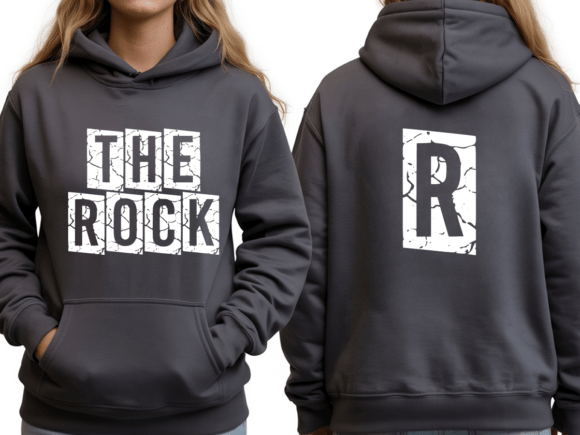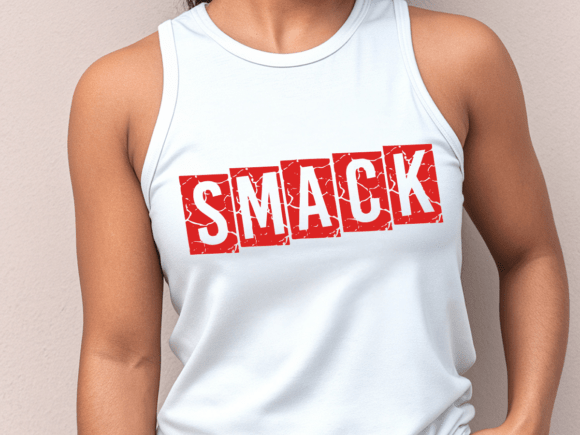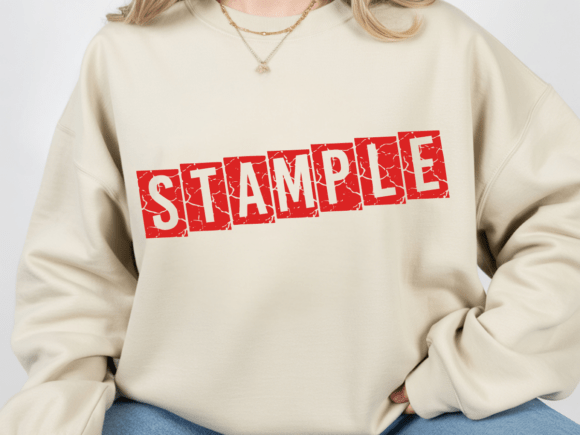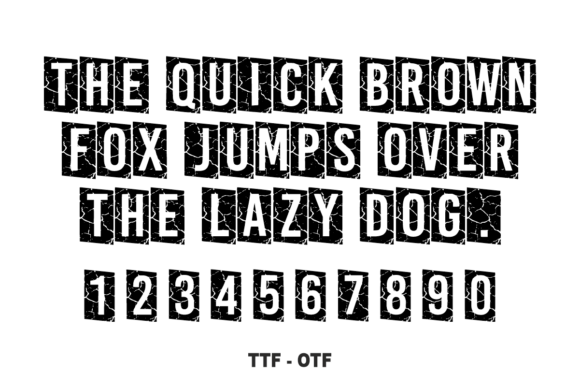
Unleash the Power of Battle Font: The Ultimate Display Font for Masculine Designs
Are you looking for a font that exudes strength, power, and grit? Look no further than Battle Font, a heavy-duty display font designed to ignite the spirit of a warrior. With its bold, blocky letterforms and realistic shattered and cracked texture, Battle Font is the perfect choice for high-impact, masculine designs.
What is Battle Font?
Battle Font is a rugged cracked display font that features uppercase letters, numbers, and basic symbols with a distressed touch. Its weathered stone or armor-like texture gives it a unique and authentic look that’s perfect for designs that require a bold and edgy feel.
Main Features of Battle Font
- Uppercase Letters: Strong, blocky, and intensely cracked, perfect for making a statement.
- Numbers (0-9): Matching rugged numerals for scores and dates, adding a touch of authenticity to your designs.
- Basic Symbols: Essential punctuation with a distressed touch, ensuring consistency throughout your design.
Perfect Use Cases for Battle Font
Battle Font is versatile and can be used in various design projects, including:
- Gaming Logos & YouTube Thumbnails: Create eye-catching logos and thumbnails that grab attention and convey a sense of strength and power.
- Gym & Fitness Apparel (T-shirts & Hoodies): Design bold and motivational apparel that inspires fitness enthusiasts to push their limits.
- Adventure & Outdoor Branding: Create rugged and adventurous branding that speaks to outdoor enthusiasts.
- Movie Titles & Book Covers: Add a touch of grit and realism to your movie titles and book covers.
- Cricut & Silhouette Crafting Projects: Use Battle Font to create custom crafts, such as paper cutouts, iron-on designs, and more.
- Sports Team Logos & Jerseys: Design bold and intimidating logos and jerseys that strike fear into the hearts of opponents.
- Military & Tactical Themed Designs: Create authentic and rugged designs that pay homage to the military and tactical communities.
Why Choose Battle Font?
Battle Font is the ultimate choice for designers and crafters looking to add a touch of strength and power to their designs. Its unique texture and bold letterforms make it perfect for high-impact designs that require attention-grabbing typography.
Tips for Using Battle Font
To get the most out of Battle Font, consider the following tips:
- Use Battle Font as a title font or header to grab attention.
- Pair Battle Font with a clean and simple font for body text to create contrast.
- Experiment with different colors and textures to enhance the font’s distressed look.
Battle Font is a powerful and versatile display font that’s perfect for designers and crafters looking to create high-impact, masculine designs. With its bold letterforms, realistic texture, and wide range of use cases, Battle Font is sure to dominate your design projects. ⚔️